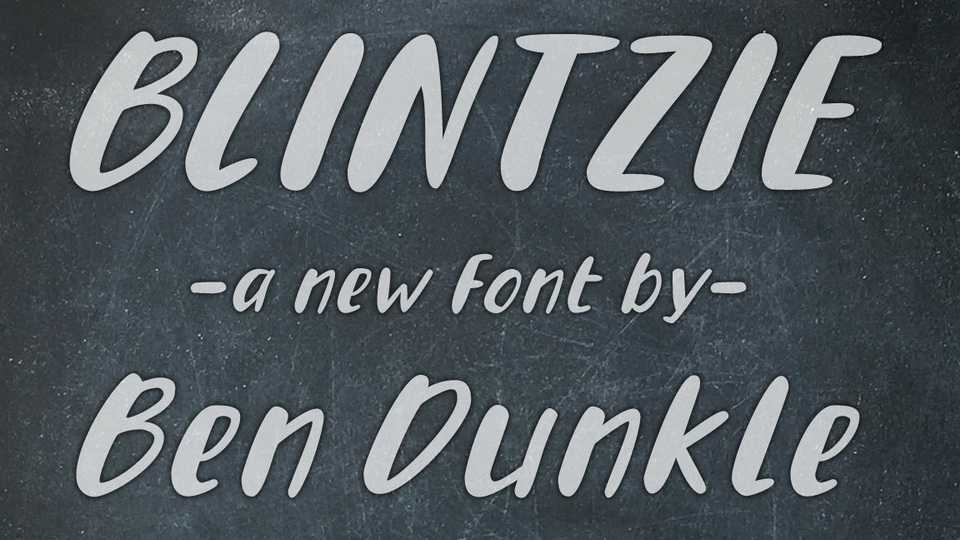
Download Blintzie font, a hand-drawn brush typeface that thick on one half, thin on the other. Blintzie is good for titles and other funky stuff.
Designer: Ben Dunkle